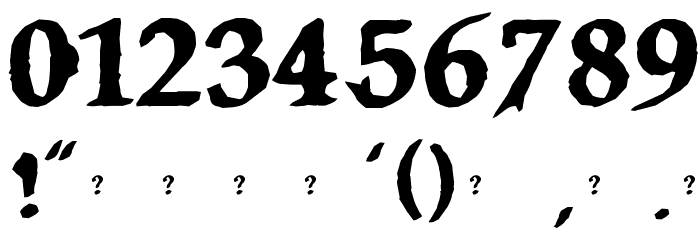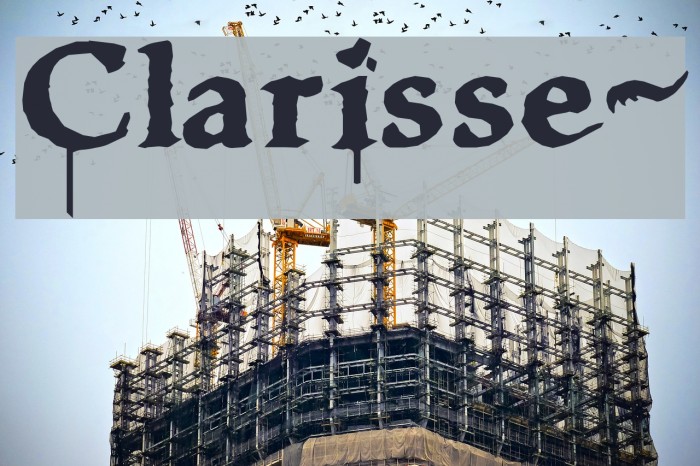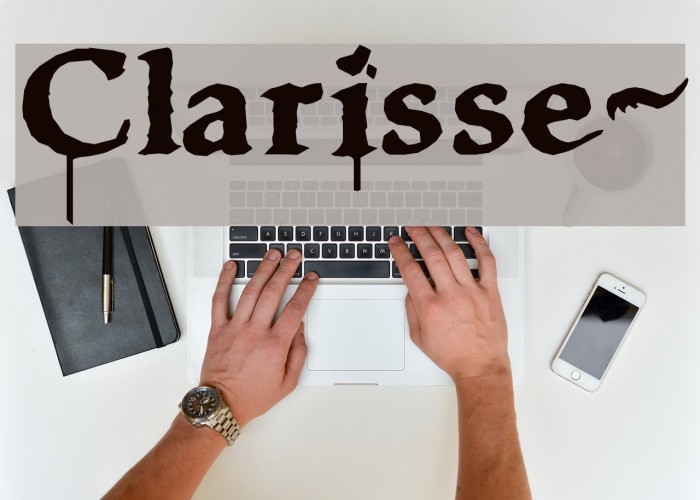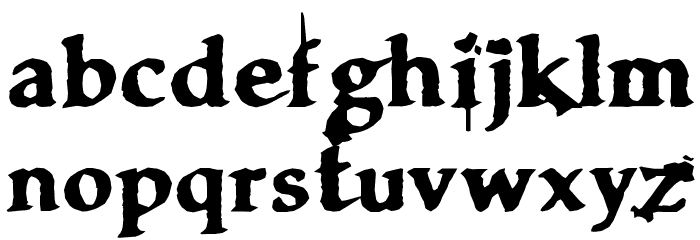
Clarisse~ Font
Clarisse~ Description
This font exhibits a bold and dramatic style, reminiscent of Gothic or medieval script. The characters are characterized by sharp, angular edges and a slightly distressed appearance, giving them a hand-crafted, vintage feel. The uppercase letters are particularly striking, with exaggerated serifs and a sense of grandeur. The lowercase letters maintain this aesthetic, with unique flourishes that add to the overall decorative quality. The numerals are consistent with the letterforms, offering a cohesive look across all characters. This font's distinctive style makes it suitable for projects that require a touch of historical or fantasy elements.
| Overall Style | Vintage |
| Proposed Projects | Ideal for fantasy book covers, historical event posters, or themed invitations. |